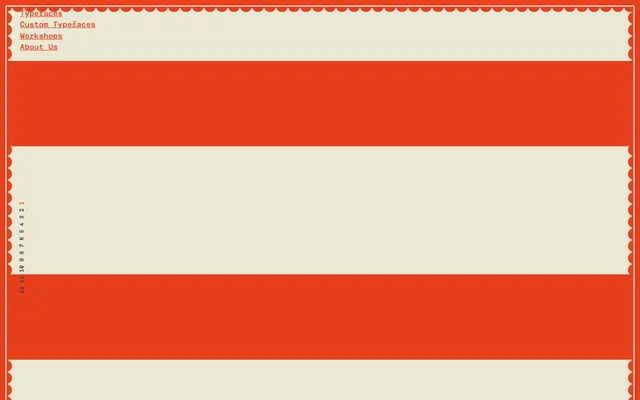
Typewalk Mono 1915
Typocalypse · Sven Fuchs · 2016
A fixed-width grotesque rooted in early 20th-century European sign-painting and Werkbund lettering tradition, designed by Sven Fuchs between 2012 and 2016.
Eight weights from Thin to Bold give the family a broad tonal range for editorial, cultural and branding work at small and large sizes. The typewriter-inflected forms reference the proto-rational graphic language associated with Werkbund Objectivity circa 1915, lending the family a period character without resorting to pastiche. A proportional companion, Typewalk 1915, is also available for contexts where fixed spacing is not required.
Classified as mono because it uses fixed-width spacing throughout; stylistically it draws from early 20th-century European sign painting and proto-rational grotesque lettering, placing it within the grotesque mono subcategory.